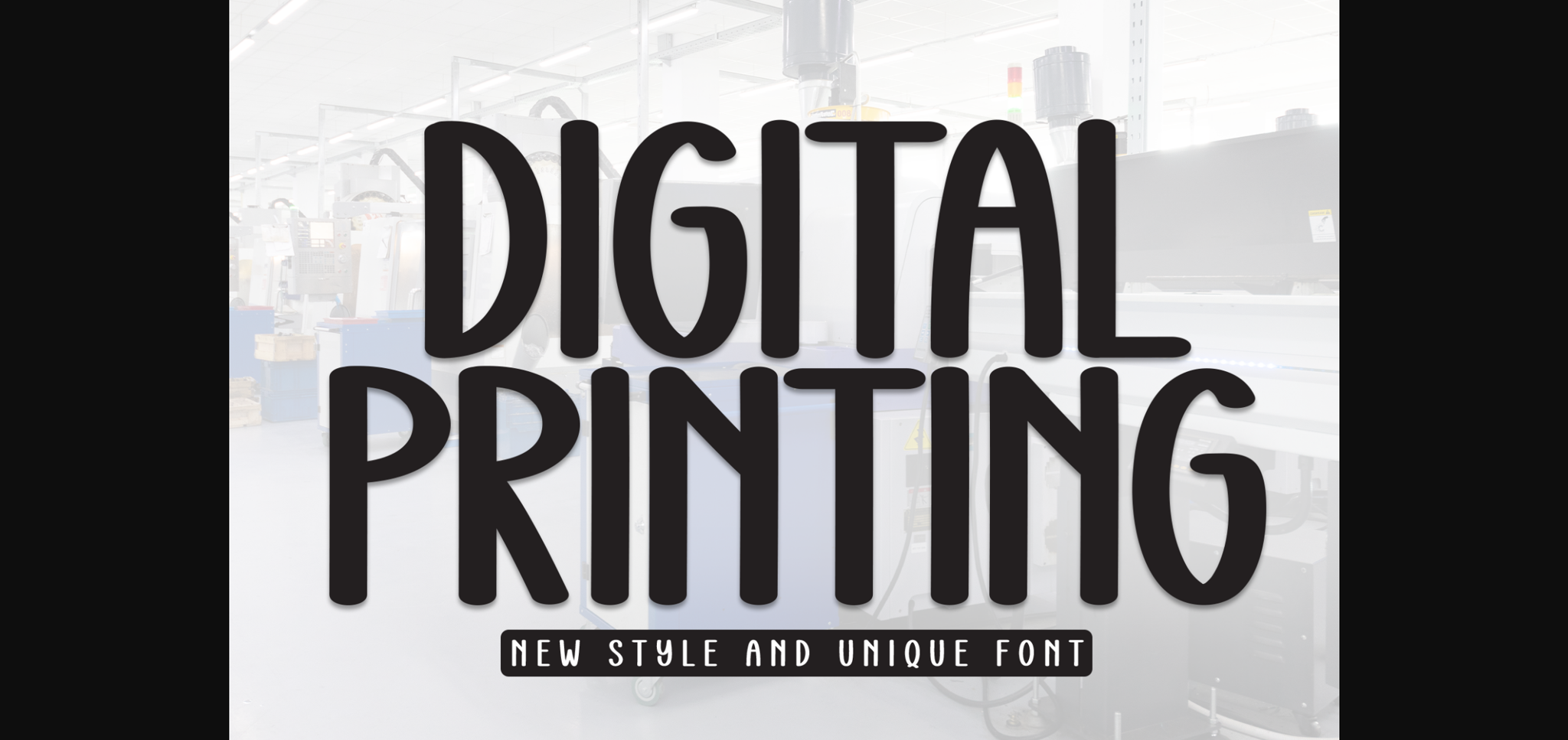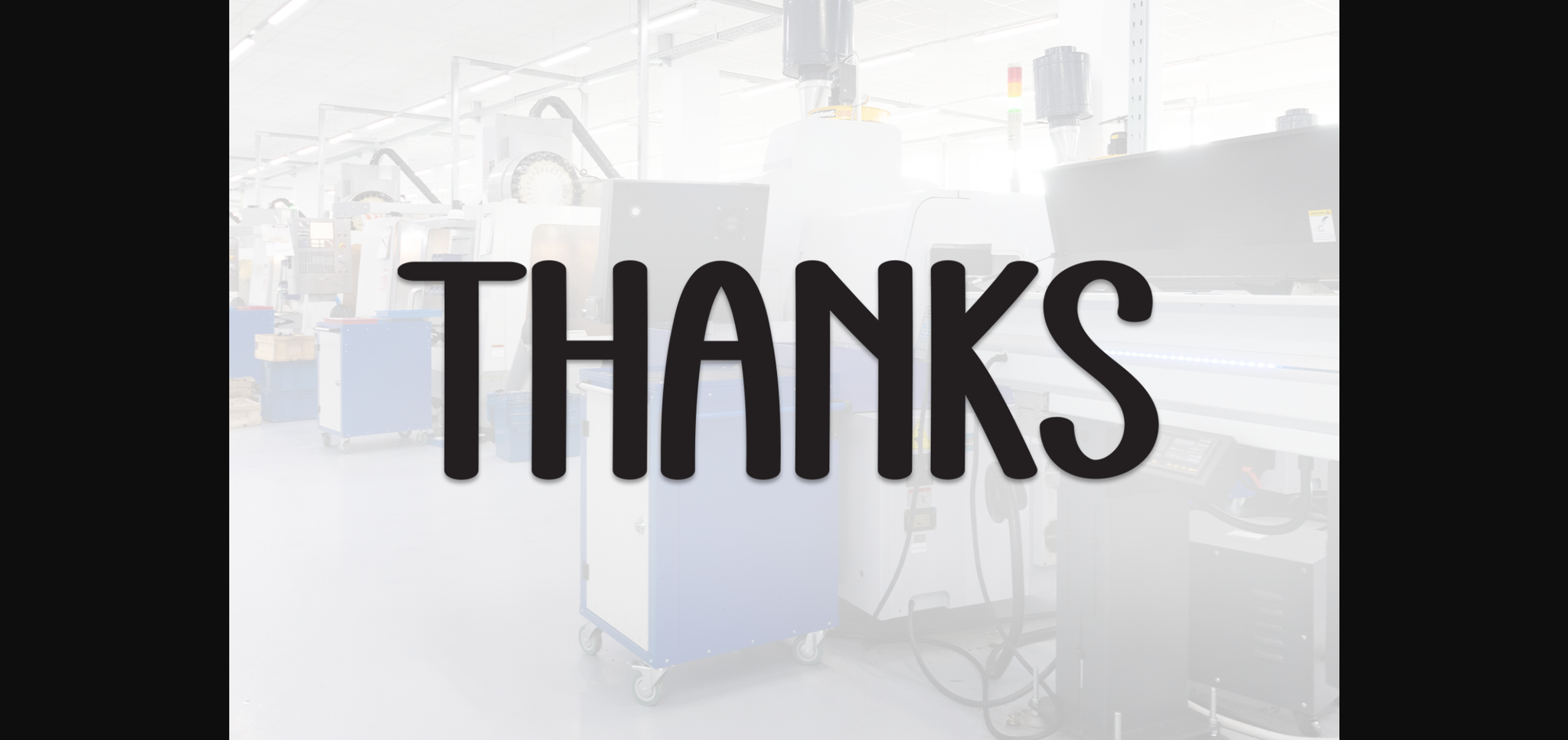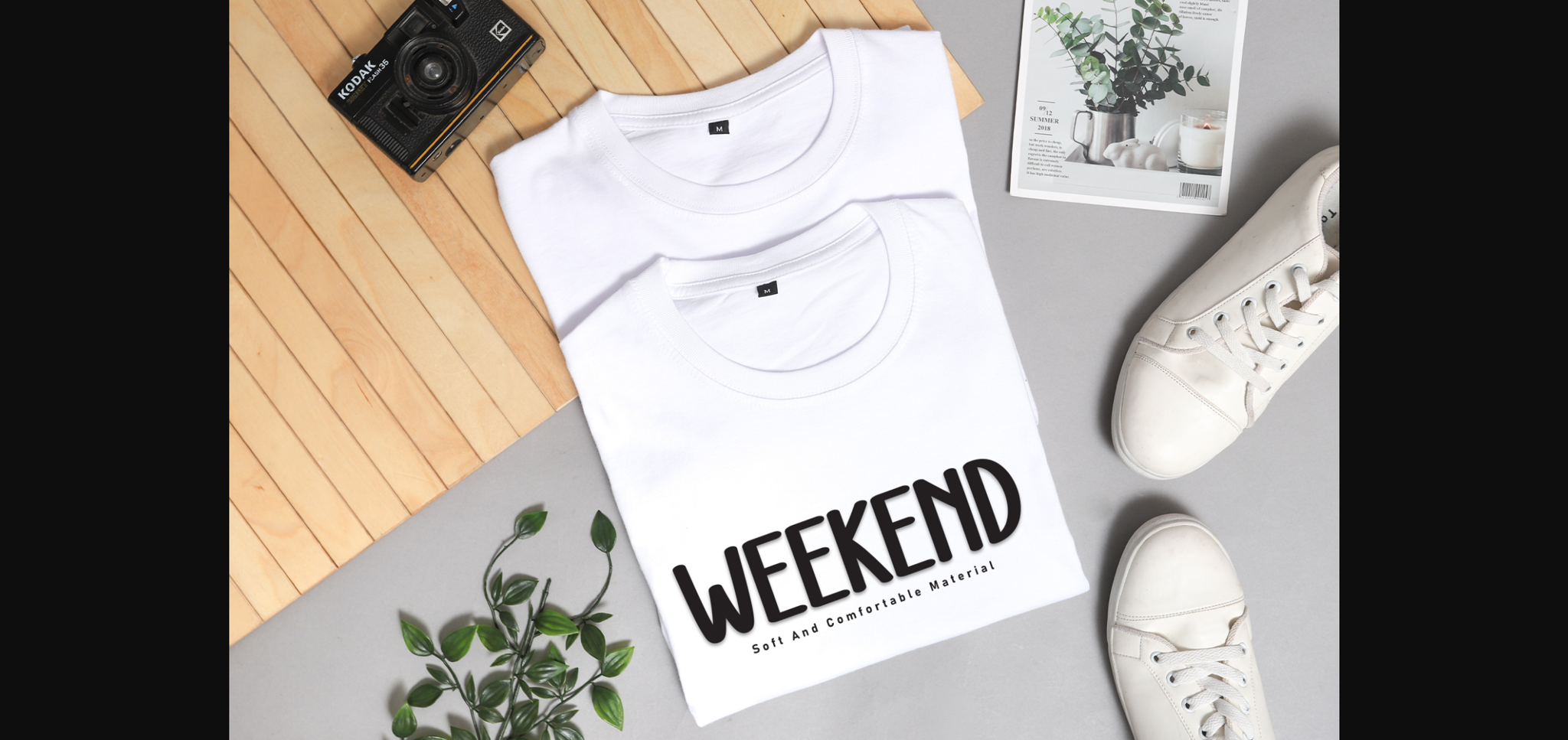
About Digital Printing Font
Digital Printing is a neat and casual sans-serif font that combines simplicity with a touch of warmth. With clean lines and balanced proportions, it exudes a friendly and approachable vibe. Perfect for various design projects, Digital Printing brings a modern and versatile style to your typography repertoire.